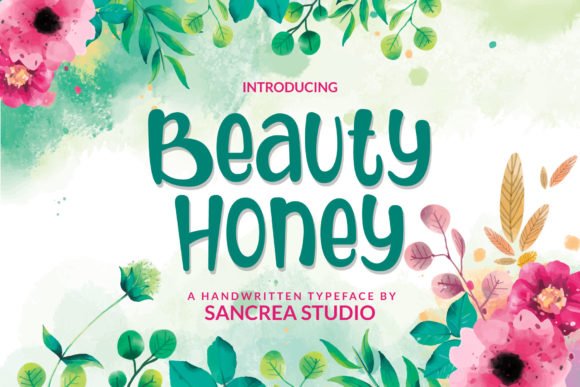
Discover the Sweet Charm of Beauty Honey Font
Who among us hasn’t felt the rush of excitement when creating something from scratch? Perhaps it’s a new design project, a crafty endeavor, or simply a doodle in our favorite sketchbook. For many of us, that spark of creativity is what drives us to keep pushing boundaries and exploring new ideas. And what better way to capture that whimsical essence than with the perfect font?
Enter Beauty Honey Font – a delightful, handwritten font that exudes joy and playfulness. Designed with children’s themes in mind, this font is a match made in heaven when paired with bright, vibrant colors. Its quirky charm is sure to bring a smile to the faces of both kids and kids-at-heart, making it an invaluable tool for designers looking to add a touch of whimsy to their next project.
- Unique Characteristics: Beauty Honey Font features a unique blend of elegant and modern design elements, making it perfect for beauty, fashion, and lifestyle brands.
- Font Styles: The font includes 6 styles: Regular, Italic, Bold, Bold Italic, Script, and Script Italic, providing users with a range of options for creative expression.
Beauty Honey Font Review
First off, I want to say that I really love the playful and feminine vibe of this font. ✨ It’s perfect for any design project that needs a touch of elegance and whimsy. The font’s soft and rounded edges make it great for use in branding, packaging, and even digital design.
One of the things that really stands out about Beauty Honey Font is its versatility. ✨ It comes in a range of weights and styles, from light to bold, which makes it easy to use in a variety of contexts. I also appreciate the many ligatures and swashes that are included, which add an extra layer of sophistication to any design.
One of the main limitations of Beauty Honey Font is its limited support for non-Latin scripts ⚠️. This can make it difficult to use the font in international projects or for clients who require text in languages other than English or other Latin-based languages.
In conclusion, Beauty Honey Font is a beautiful and versatile font that is perfect for designers who want to add a touch of elegance and whimsy to their projects. While it may have some limitations, the font’s many strengths and the support it provides make it a great choice for a wide range of design applications.
- Playful and feminine vibe
- Soft and rounded edges
- Versatility in weights and styles
- Many ligatures and swashes
- Limited support for non-Latin scripts
Tips for Getting the Most Out of the Beauty Honey Font